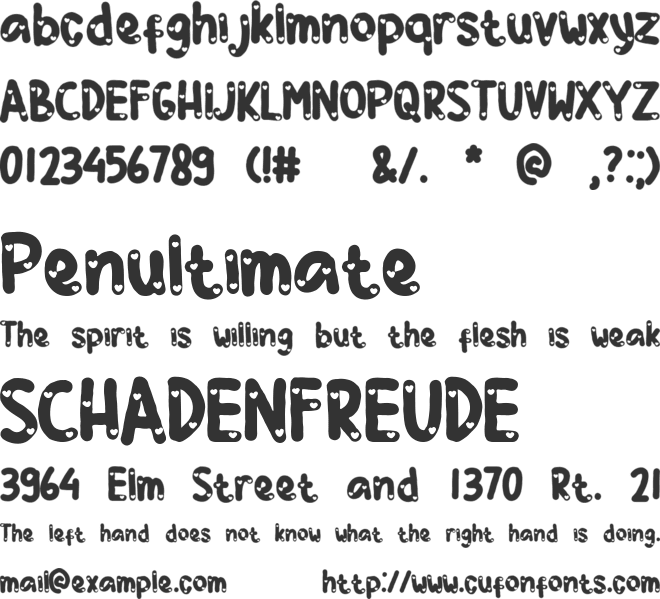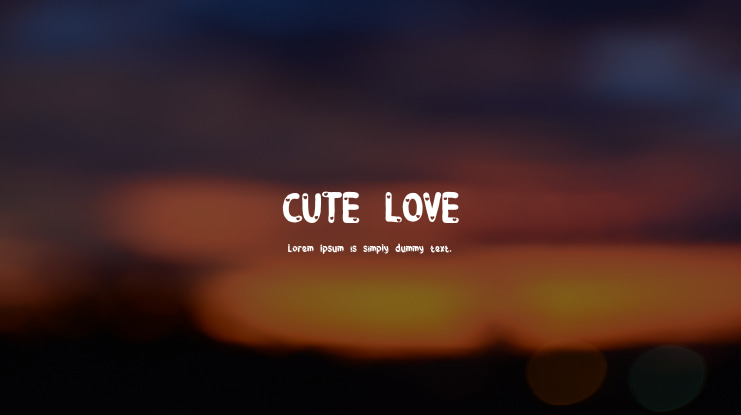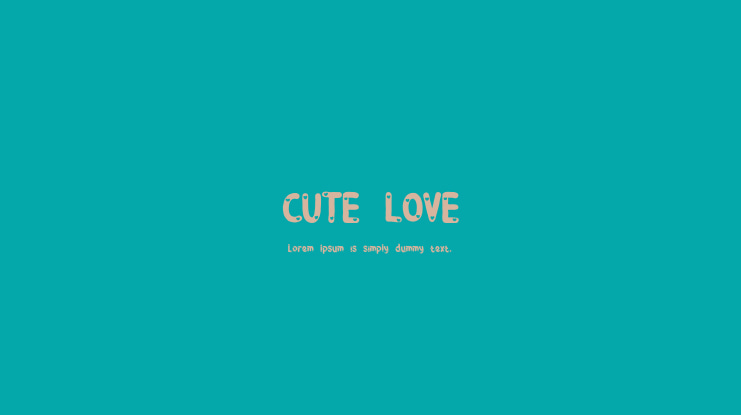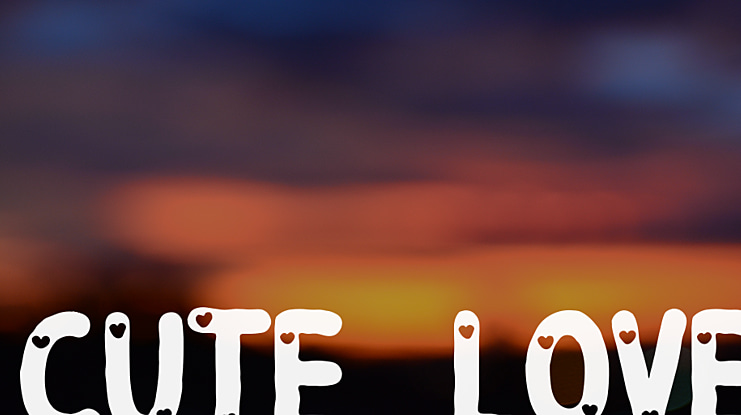
CUTE LOVE Font
Masyafi std
Cute Love is a thick lettered and sweet display font. It embodies playfulness and authenticity and is the perfect choice for any children activity or school project.